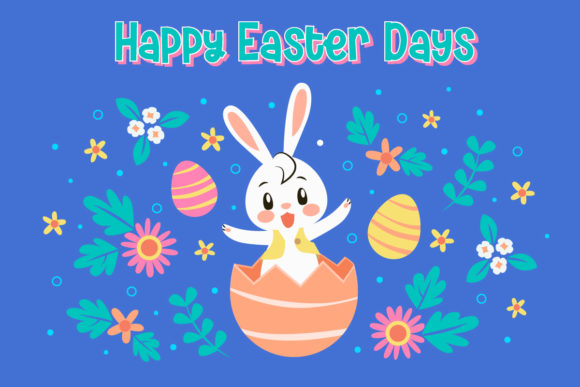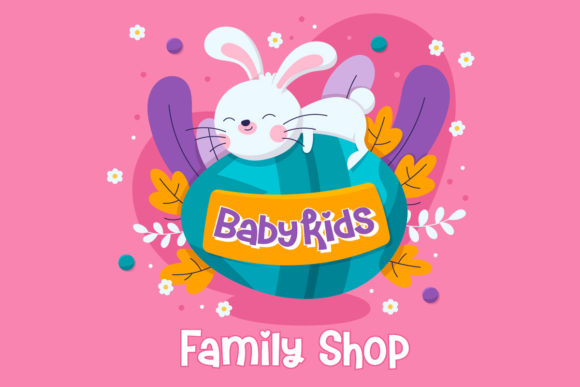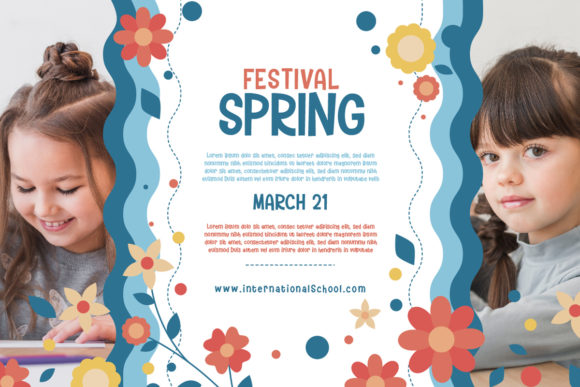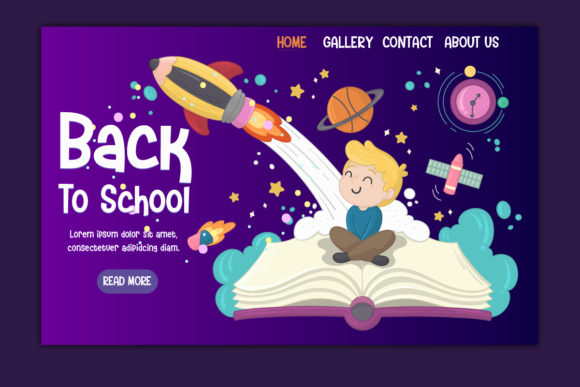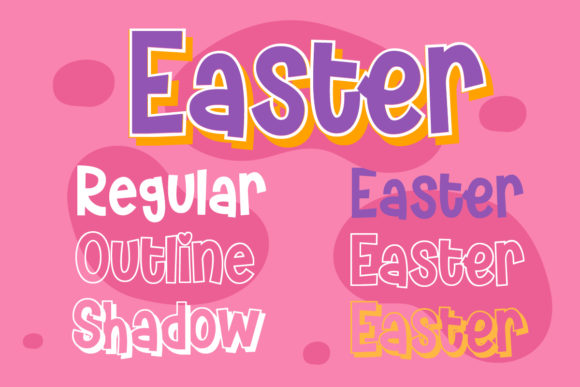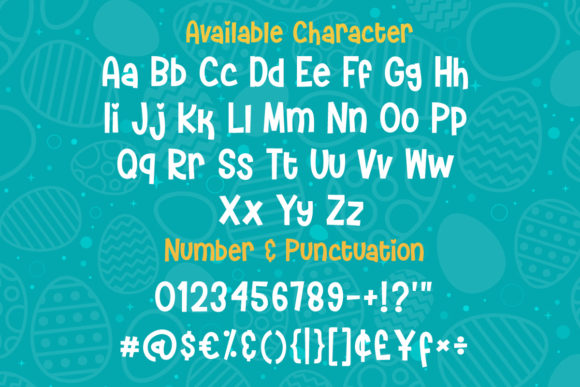
Discovering the Joy of House Easter Font
Do you remember the thrill of creating a project with your favorite crayons and markers as a kid? The excitement of bringing your imagination to life, and the sense of pride when you finally held your masterpiece in your hands? For designers, this feeling never truly goes away – and it’s exactly what the House Easter Font embodies.
As a trendy and chunky lettered display font, House Easter Font is the perfect choice for any children’s activity or school project that needs a playful touch. Its authenticity and whimsical feel make it an instant favorite among designers, who appreciate its versatility and creative potential. Whether you’re working on a children’s book, a birthday party invitation, or a fun educational resource, House Easter Font is sure to add a dash of personality to your design.
House Easter Font Key Features
- Font Family: A unique, Easter-themed font with a playful and whimsical feel, perfect for spring and Easter-themed designs.
- Unique Characteristics: The font features intricate details, such as hand-drawn illustrations and ornaments, making it a standout choice for Easter-themed designs.
House Easter Font Review
Overall, I’d say the House Easter Font is a nice, quirky addition to any designer’s toolkit. ✨ I love the playful, hand-drawn feel it gives to any project it’s used in. The font is perfect for creating a whimsical atmosphere, especially for Easter-themed designs or any other projects that require a touch of whimsy.
- ✨ Unique and playful design: The House Easter Font is a one-of-a-kind font that’s sure to add some personality to your projects.
- ✨ Great for hand-drawn feels: The font’s hand-drawn feel is perfect for creating a sense of imperfection and uniqueness.
- ✨ Easter-themed: The font is specifically designed for Easter-themed projects, making it a great choice for those types of designs.
However, there are some limitations:
- ⚠️ Limited flexibility: The font is specifically designed for Easter-themed projects, which may limit its use in other types of projects.
- ⚠️ Not suitable for formal projects: The font’s playful design may not be suitable for formal projects or those that require a more professional tone.
Overall, I’d recommend the House Easter Font for designers who are looking to add a touch of whimsy to their projects. Just be aware of its limitations and use it accordingly.
House Easter Font: A Practical Application Guide
Tips for Getting the Most Out of House Easter Font
Use House Easter Font for creative and playful designs, such as Easter-themed invitations, social media graphics, and party decorations. Experiment with different font sizes and colors to create a unique and eye-catching design.
House Easter Font is commonly used for:
- Easter-themed designs
- Children’s party invitations
- Social media graphics
- Party decorations